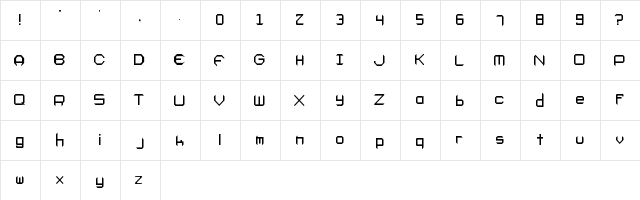
Zombi Normal Regular
| Designer | Karu |
Design Context for Zombi Normal Typeface
Zombi Normal takes a measured approach to typography — its balanced proportions and neutral character make it a reliable workhorse for both digital and print work.